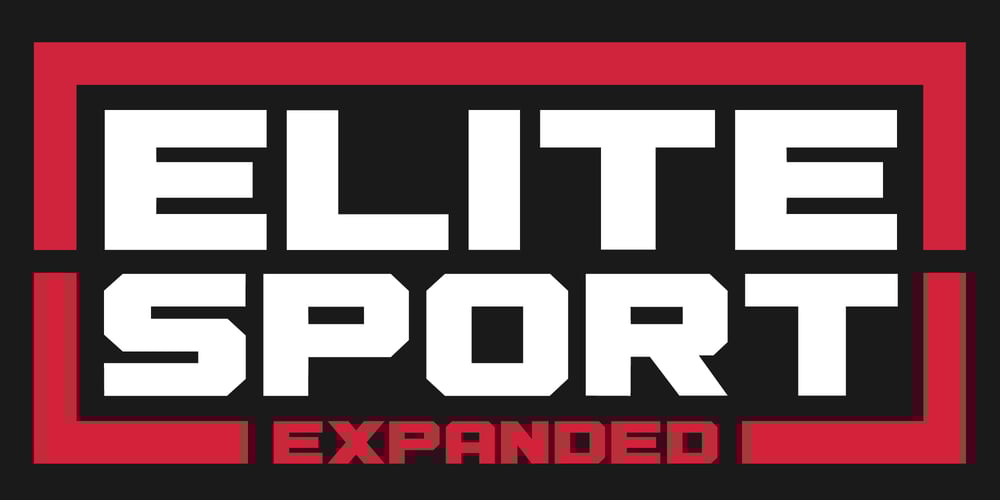
Elite Sport
Elite Sport font
Elite Sport Font Family was designed by Swinn Jonathan and published by Alphabet Agency. Elite Sport contains 1 styles and family package options. Alphabet Agency presents Elite Sport Expanded, a super bold sans serif font inspired by college sports lettering. The font has a strong character defined by the straight edges and corners.Elite Sport Expanded is an all caps font.The font contains Latin Simple characters.